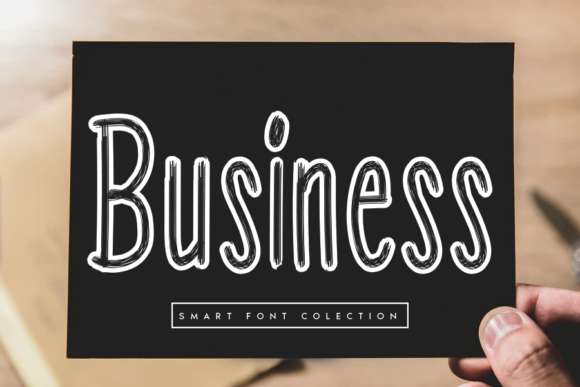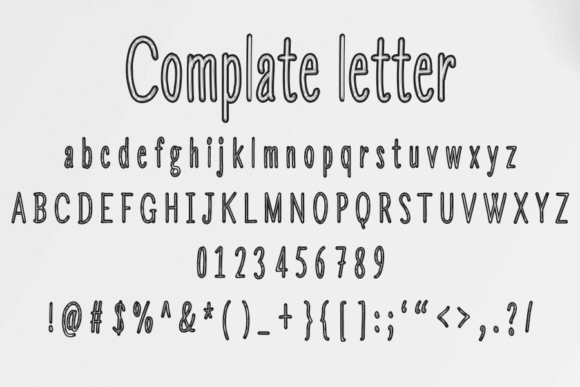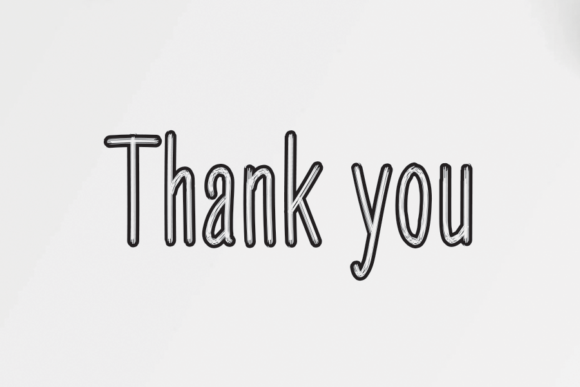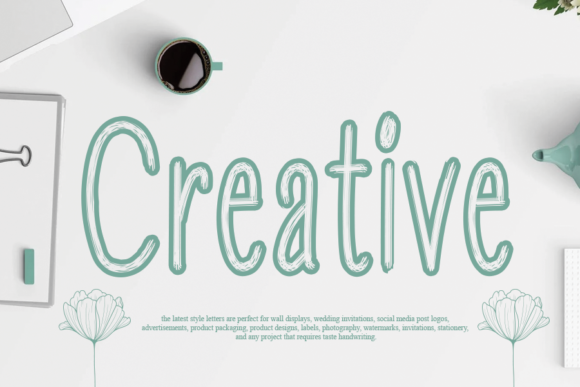
Introducing Creative Font: The Perfect Blend of Fun and Sophistication
Are you tired of using the same old fonts for your design projects? Look no further! Creative Font is a fun and friendly handwritten font that’s sure to add a touch of personality to your logos, branding, social media, and crafty DIY projects. With its clean and quirky design, this font is perfect for designers and crafters who want to add a bit of whimsy to their work.
What Makes Creative Font So Special?
Creative Font is a unique and versatile font that’s designed to be both clean and quirky. Its handwritten style gives it a personal and approachable feel, making it perfect for projects that require a bit of personality. Whether you’re designing a logo, creating a social media graphic, or working on a crafty DIY project, Creative Font is the perfect fit.
One of the things that sets Creative Font apart is its ability to balance fun and sophistication. It’s not too playful or over-the-top, but it’s also not too boring or generic. Instead, it strikes the perfect balance between the two, making it suitable for a wide range of projects and applications.
Uses for Creative Font
So, what can you use Creative Font for? The possibilities are endless! Here are a few ideas to get you started:
• Logos and branding: Creative Font is perfect for creating unique and memorable logos that will help your brand stand out. Its clean and quirky design makes it suitable for a wide range of industries and applications.
• Social media graphics: Add a touch of personality to your social media graphics with Creative Font. Whether you’re creating a Facebook post, an Instagram story, or a Twitter header, this font is sure to make your content stand out.
• Crafty DIY projects: If you’re a crafter or a maker, Creative Font is a great choice for your DIY projects. Use it to create custom signs, labels, and other decorative elements that will add a personal touch to your creations.
• Stationery and paper crafts: Creative Font is also perfect for stationery and paper crafts. Use it to create custom invitations, greeting cards, and other paper crafts that will add a touch of personality to your correspondence.
Why Designers and Crafters Love Creative Font
So, why do designers and crafters love Creative Font? Here are a few reasons:
• Unique and memorable: Creative Font is a unique and memorable font that’s sure to make your designs stand out. Its clean and quirky design makes it perfect for creating custom and personalized designs.
• Versatile: Creative Font is a versatile font that can be used for a wide range of projects and applications. Whether you’re designing a logo, creating a social media graphic, or working on a crafty DIY project, this font is sure to be a great choice.
• Easy to read: Despite its quirky design, Creative Font is easy to read and understand. This makes it perfect for projects that require a bit of personality but still need to be clear and concise.
• Fun and friendly: Creative Font has a fun and friendly vibe that’s perfect for designers and crafters who want to add a bit of personality to their work. Its handwritten style gives it a personal and approachable feel that’s sure to delight.
In conclusion, Creative Font is a fun and friendly handwritten font that’s perfect for designers and crafters who want to add a bit of personality to their work. With its clean and quirky design, this font is suitable for a wide range of projects and applications, from logos and branding to social media graphics and crafty DIY projects. Whether you’re looking for a unique and memorable font or a versatile and easy-to-read font, Creative Font is the perfect choice.
So, what are you waiting for? Give Creative Font a try today and see how it can add a touch of personality to your designs!